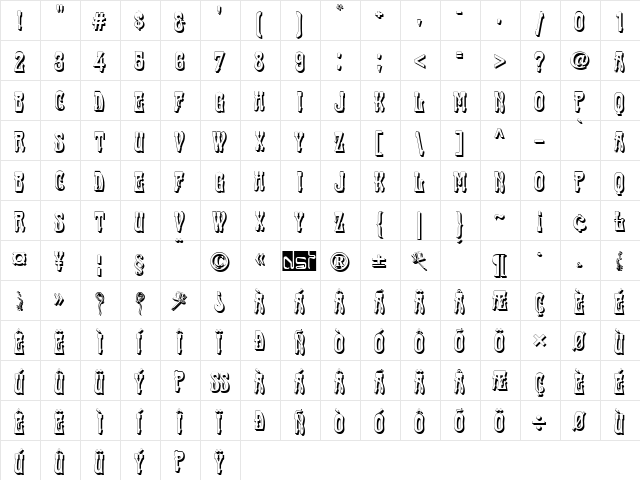
Cabaret Shadow Regular
Design Context for Cabaret Shadow Typeface
Cabaret Shadow is built around its visual character rather than neutral utility — its distinctive forms are designed to make an impression at display sizes.
Font Pairing: Pair with a clean neutral sans-serif for body copy to let Cabaret Shadow's character lead without overwhelming the composition.
Pro Tip: Treat Cabaret Shadow as the centrepiece of your typographic hierarchy. One strong heading set in a decorative face can carry an entire layout.